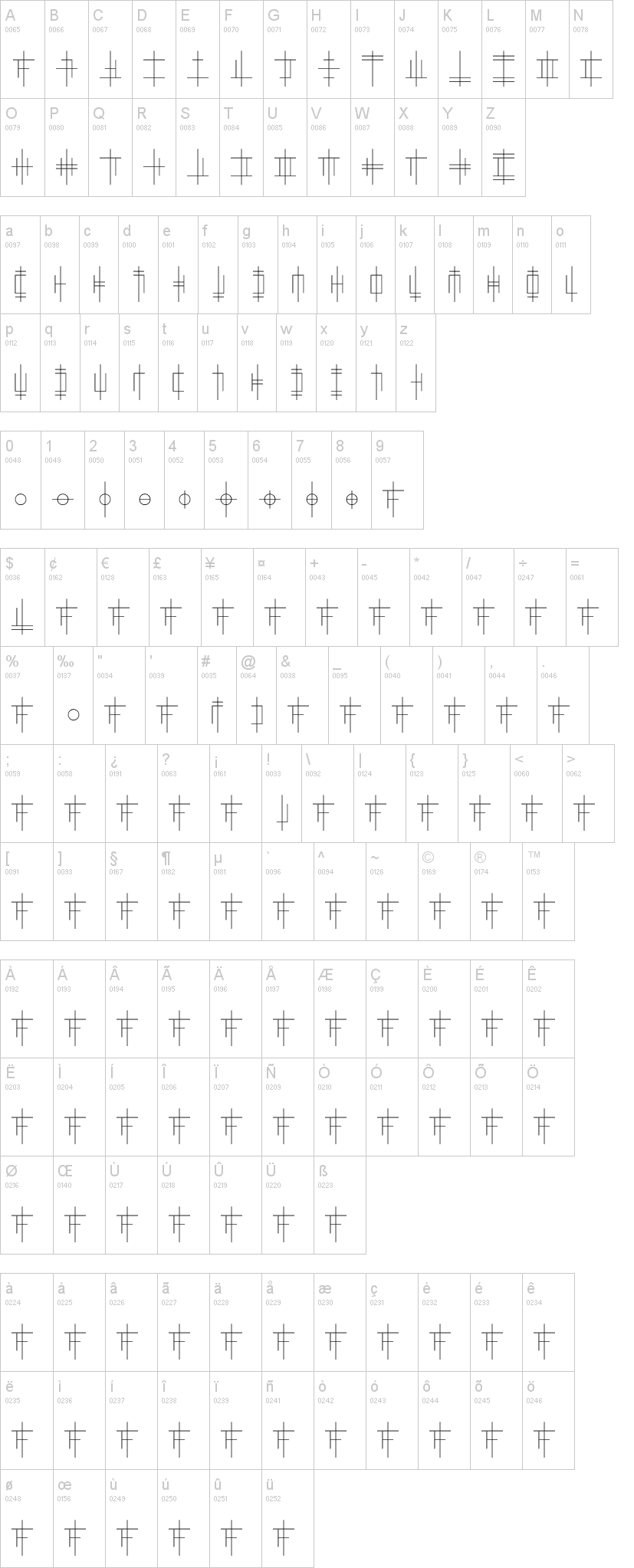
Note of the authorSomething I created for a project. I needed an alien language so I created one. Font consists of all lower and upper case, plus numbers and ! @ # $